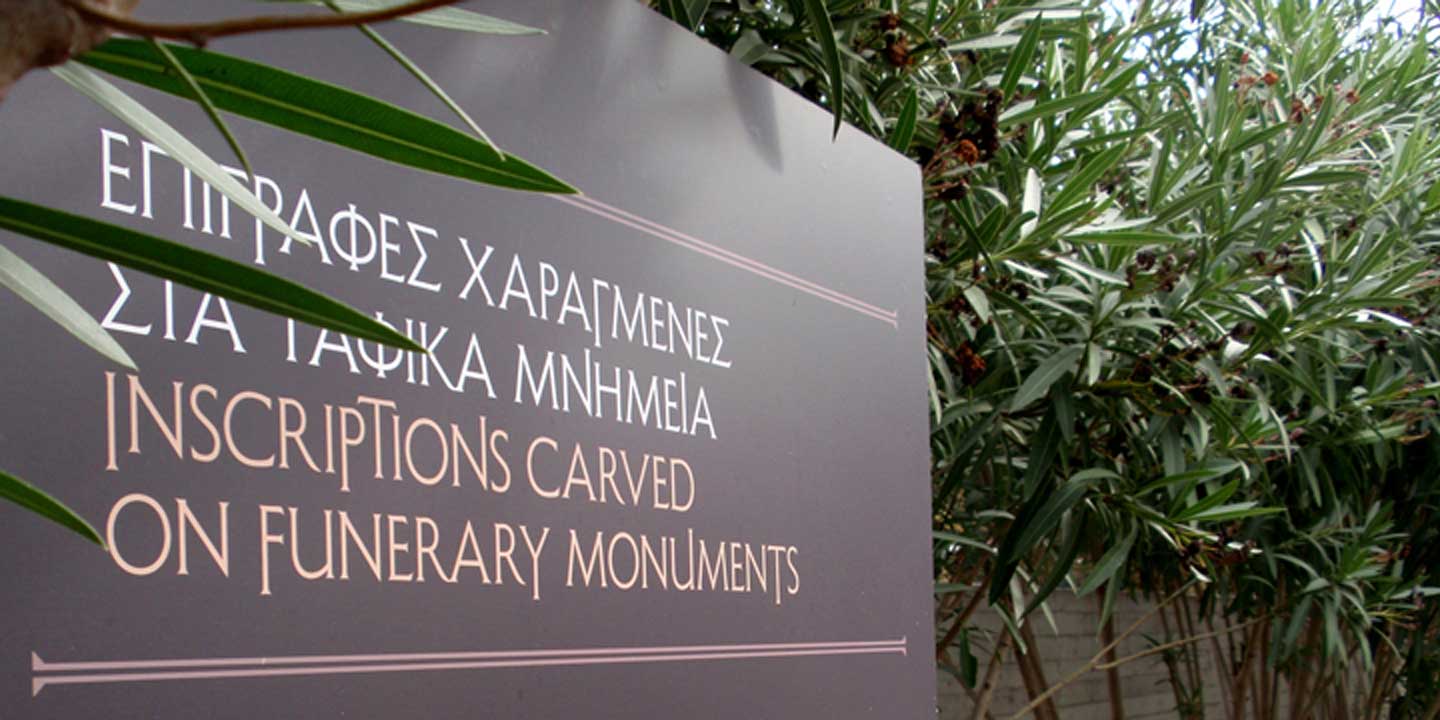
Shàngó Gothic Regular
For the last couple of years I have been working on and off on a monoline version of Shàngó. This new design maintains the classic letterforms of the original, but its relatively even strokes gives it a more solid appearance, making it useful where a more modern, masculine look is needed.
The new family is called Shàngó Gothic and is available in four weights: Regular, Medium, Bold, and Extra Bold.